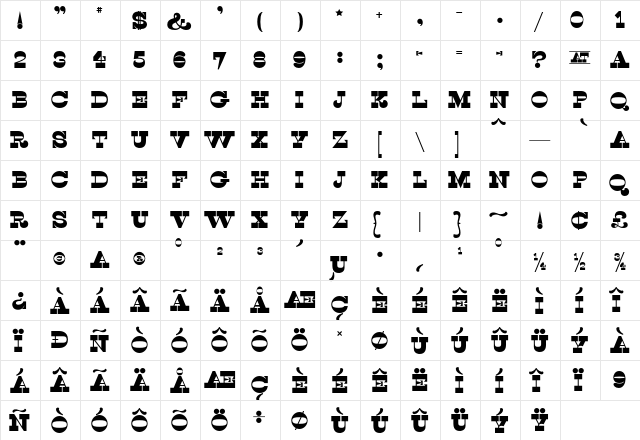
Slab Sheriff · Alex Sheldon for Match and Kerosene. Alex Sheldon ·
Design Context for Slab Sheriff Typeface
Slab Sheriff features prominent, blocky serifs that give it a confident, grounded presence — equally at home in editorial settings and bold branding work.
Suited to magazines, political campaign materials, bold packaging, and any setting where authority matters.
Pro Tip: Use Slab Sheriff for headlines and subheadings where its slab serifs can make an impression. It also holds up well in mid-size body copy thanks to its sturdy construction.